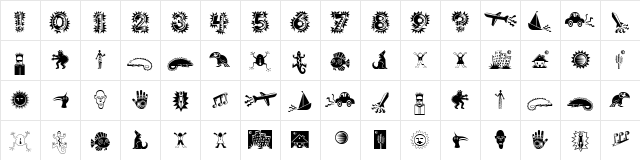
PopticsOneExtras Regular Free Font
PopticsOneExtras Regular
Design Context for PopticsOneExtras
PopticsOneExtras is a composed and adaptable typeface that performs quietly and consistently across a wide range of design contexts.
Pro Tip: Use PopticsOneExtras in both headline and body roles to test its range before committing to a single application.